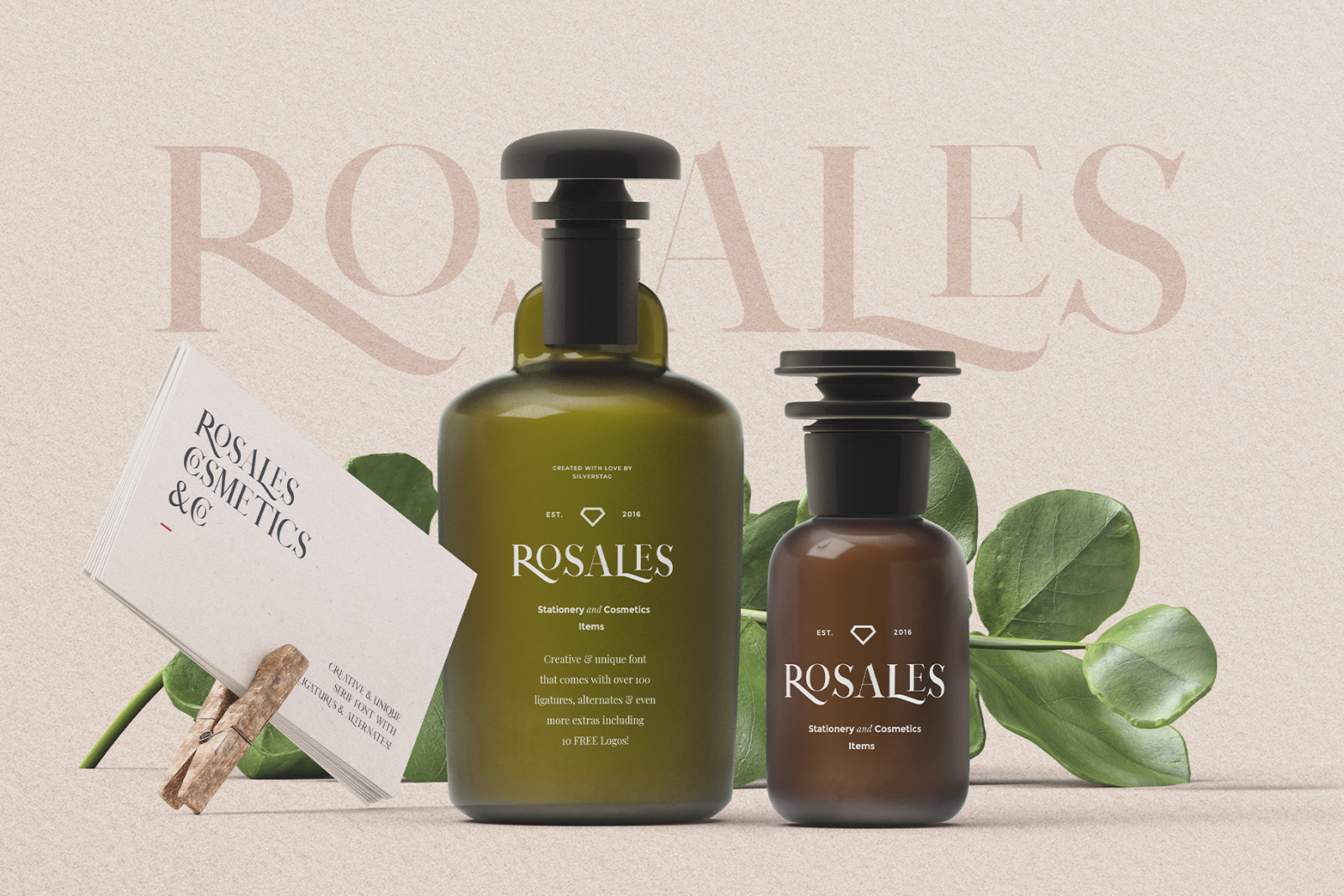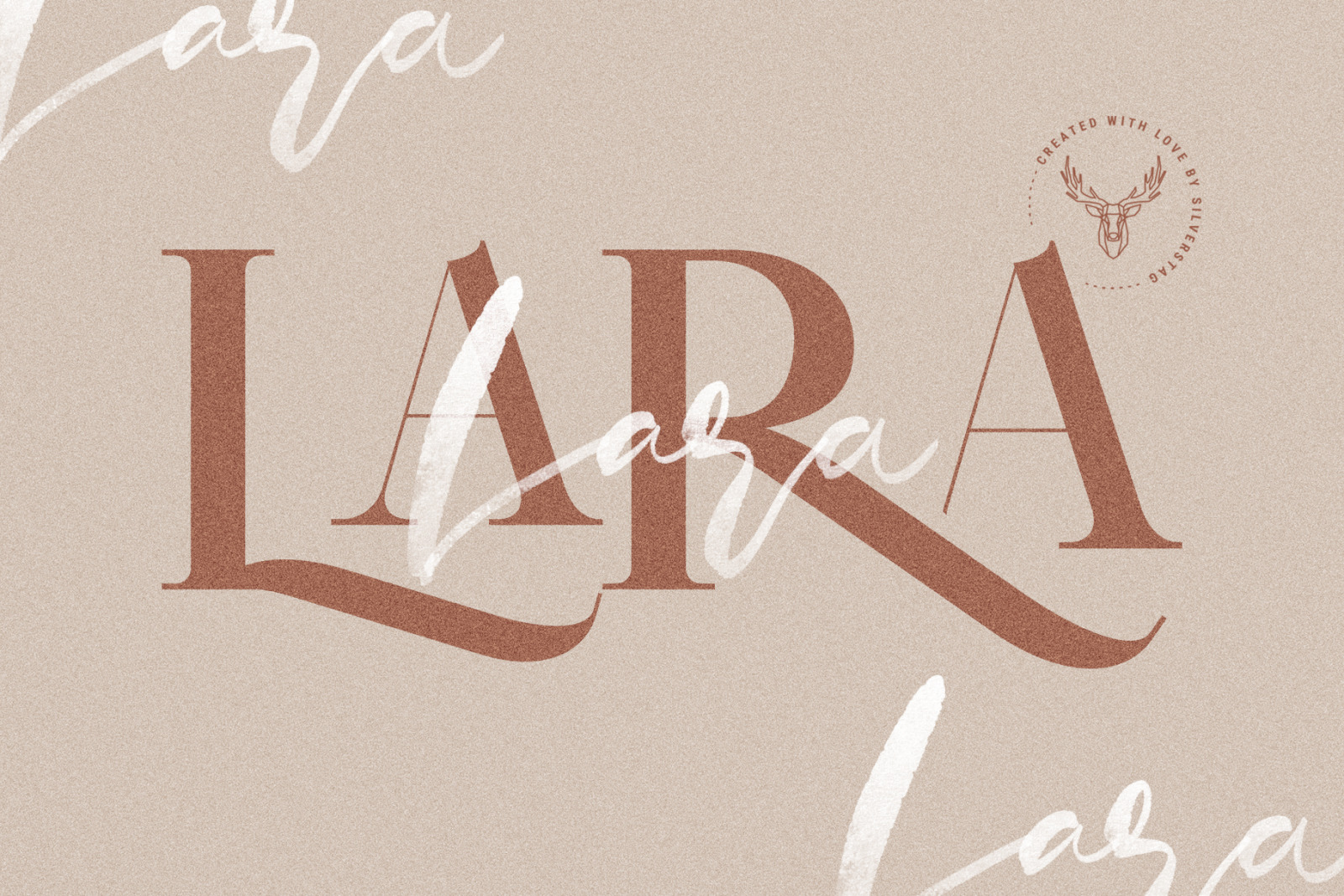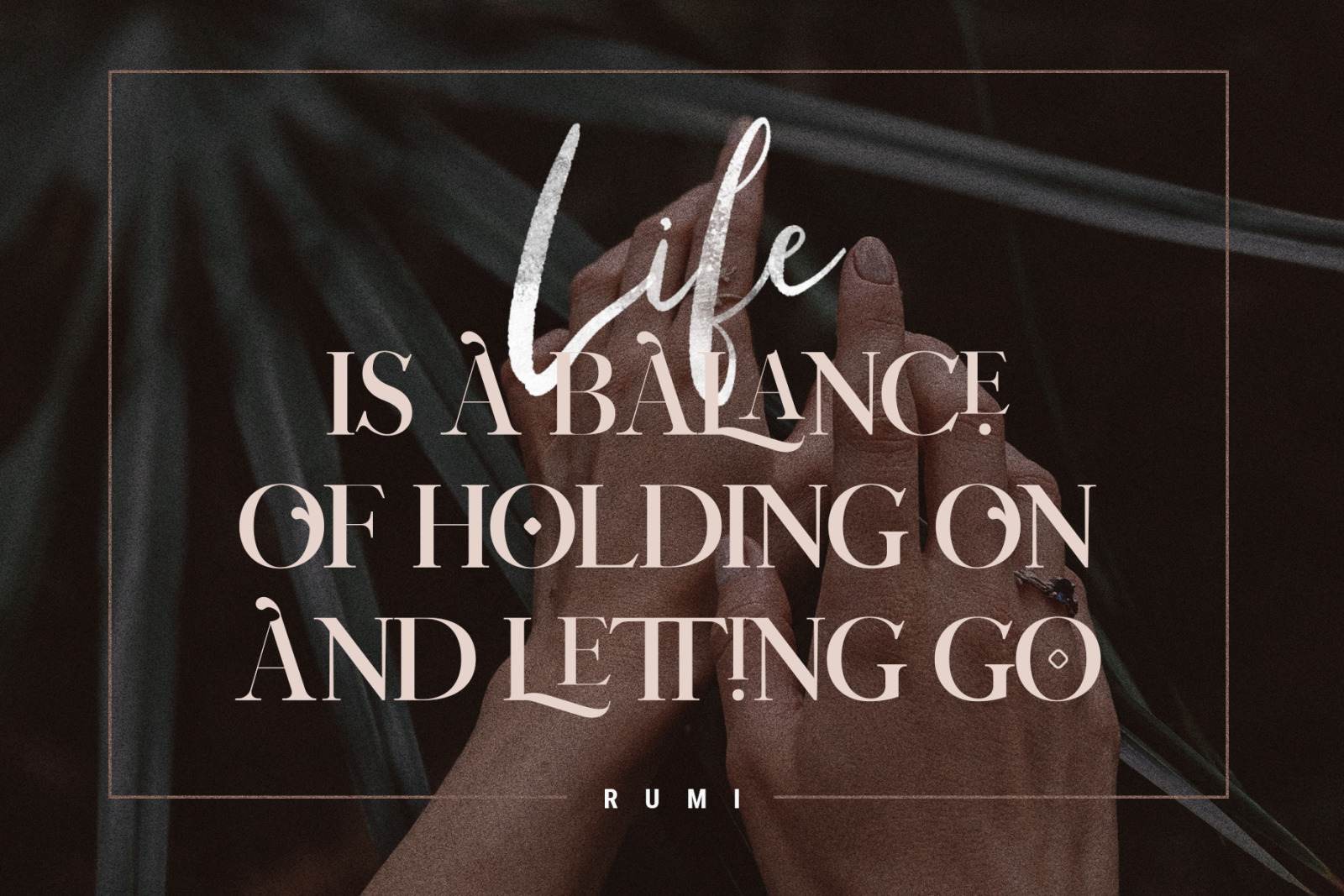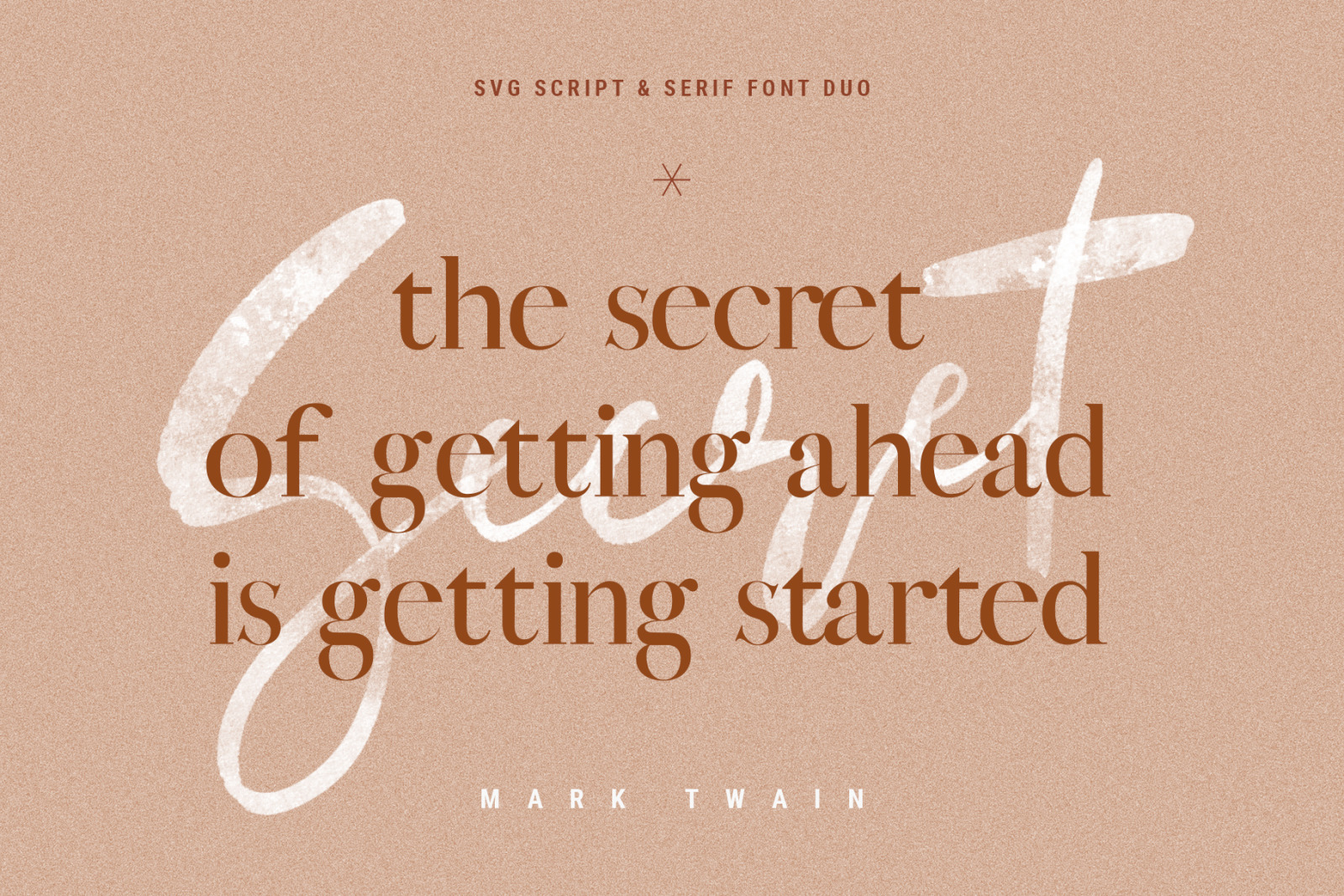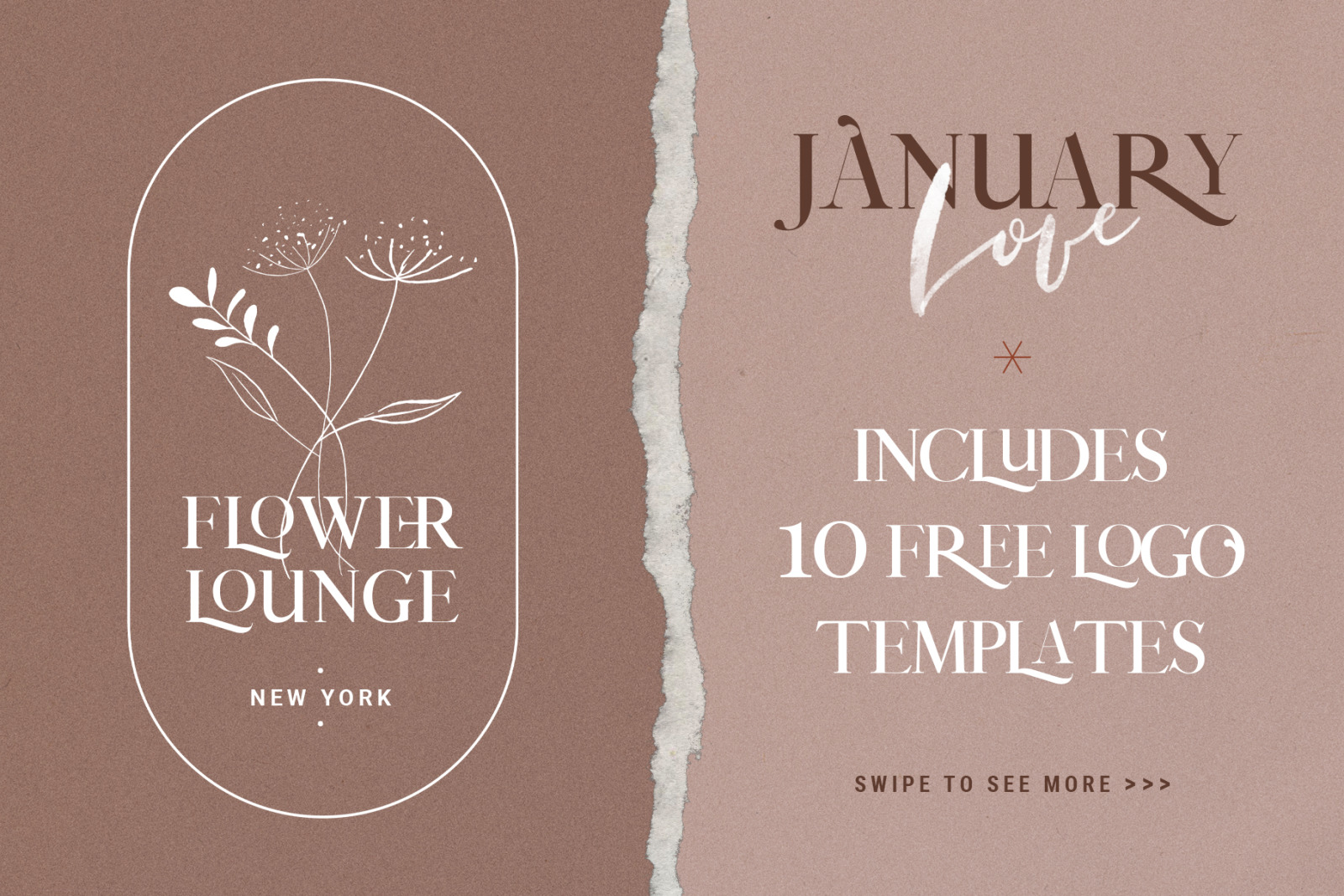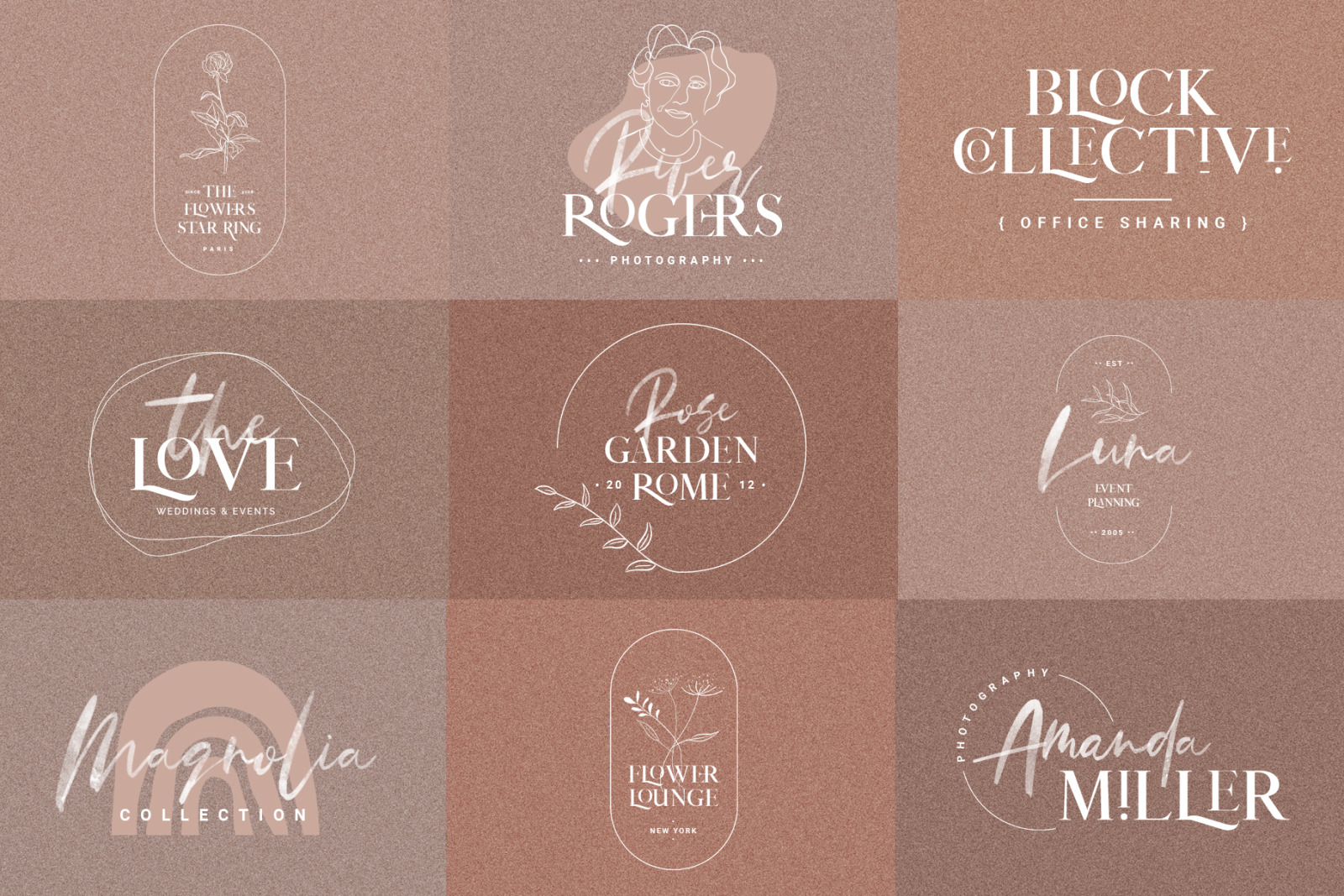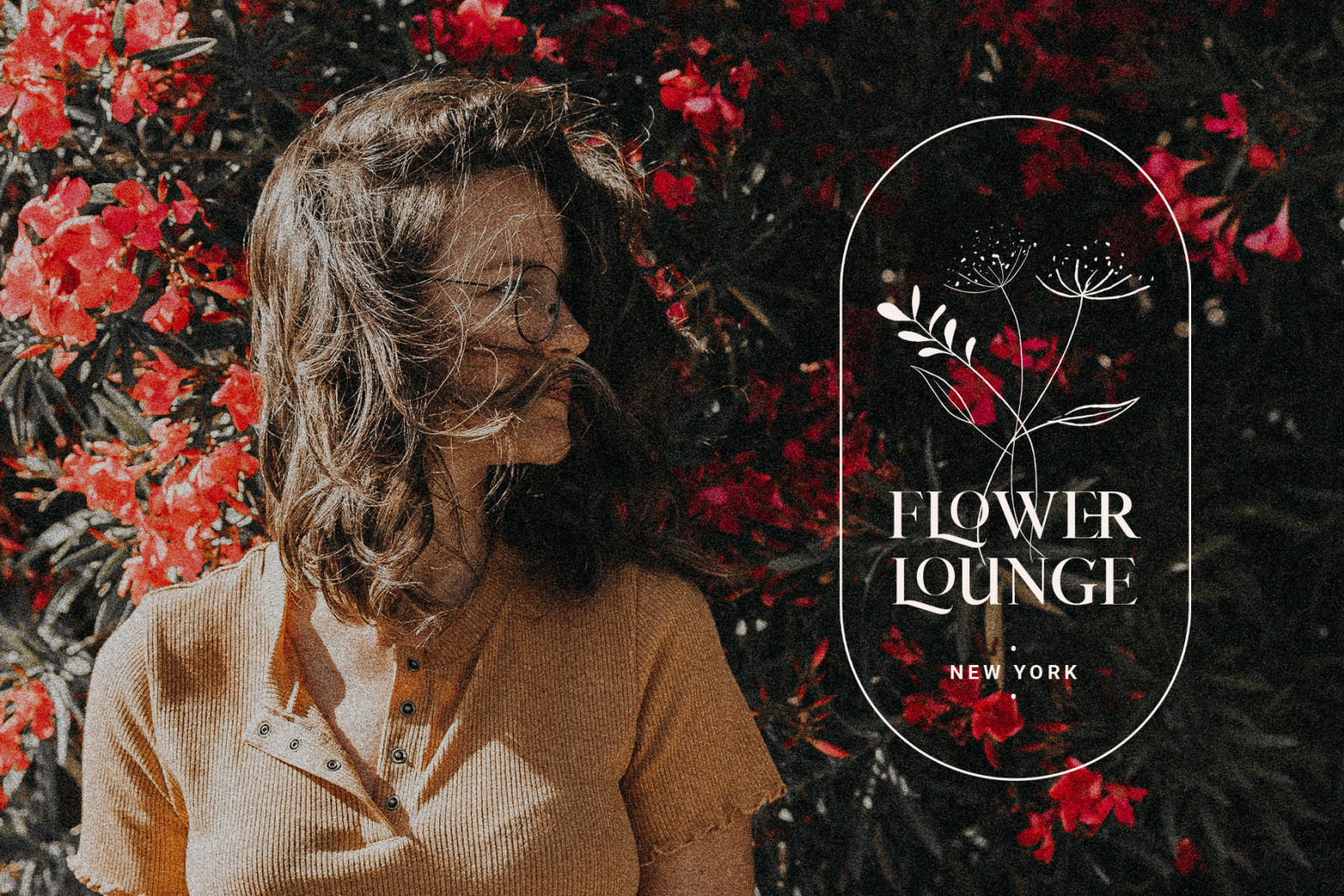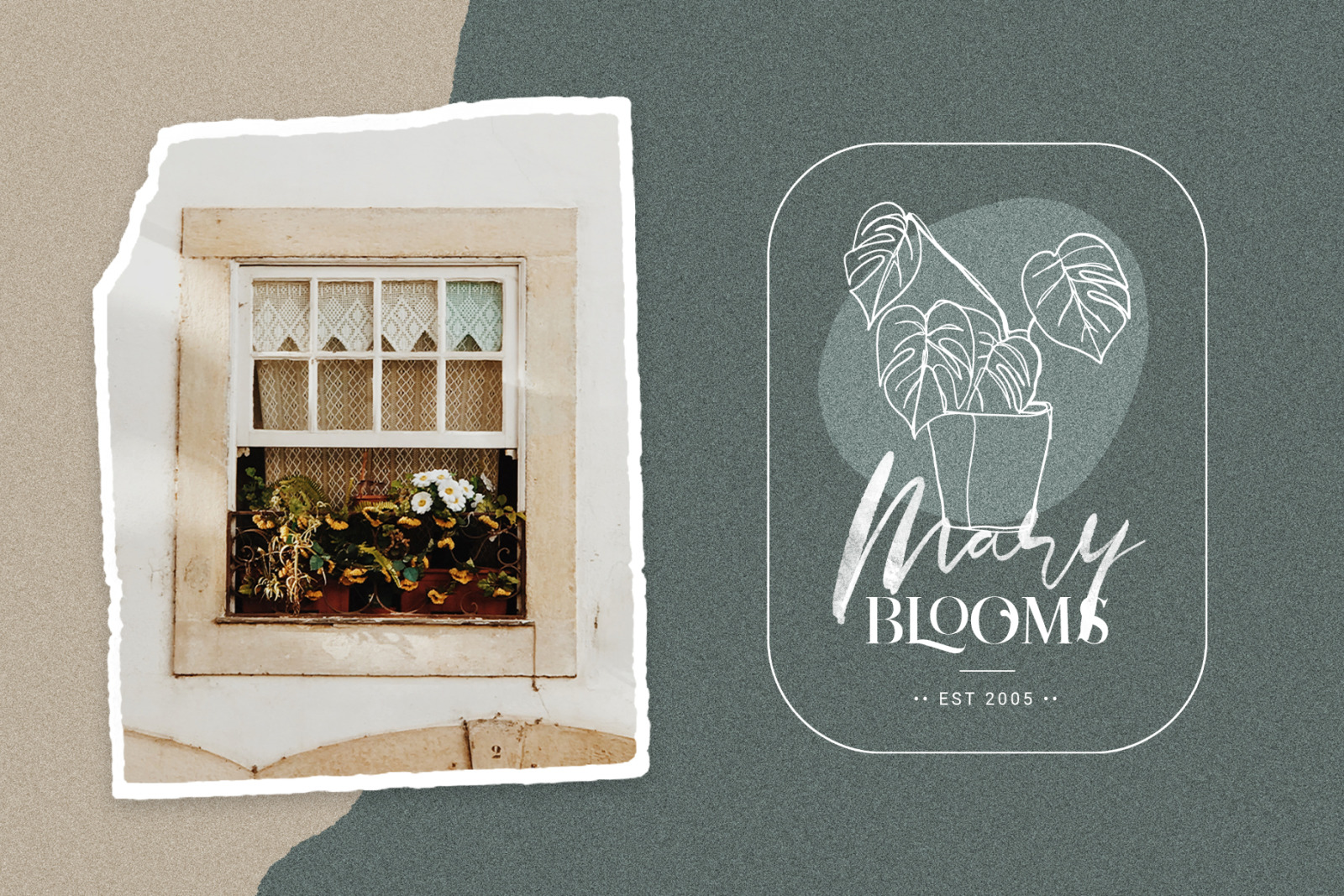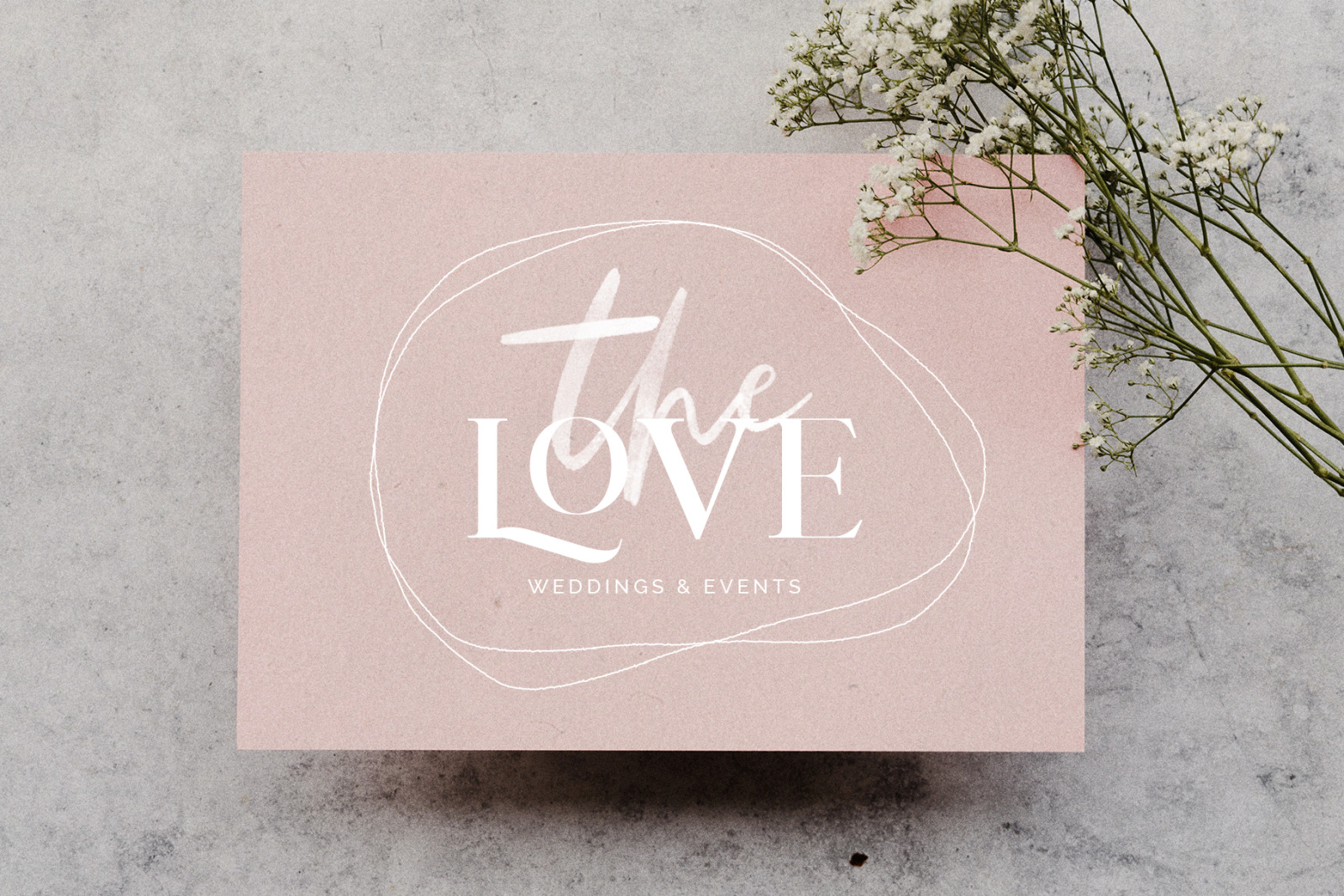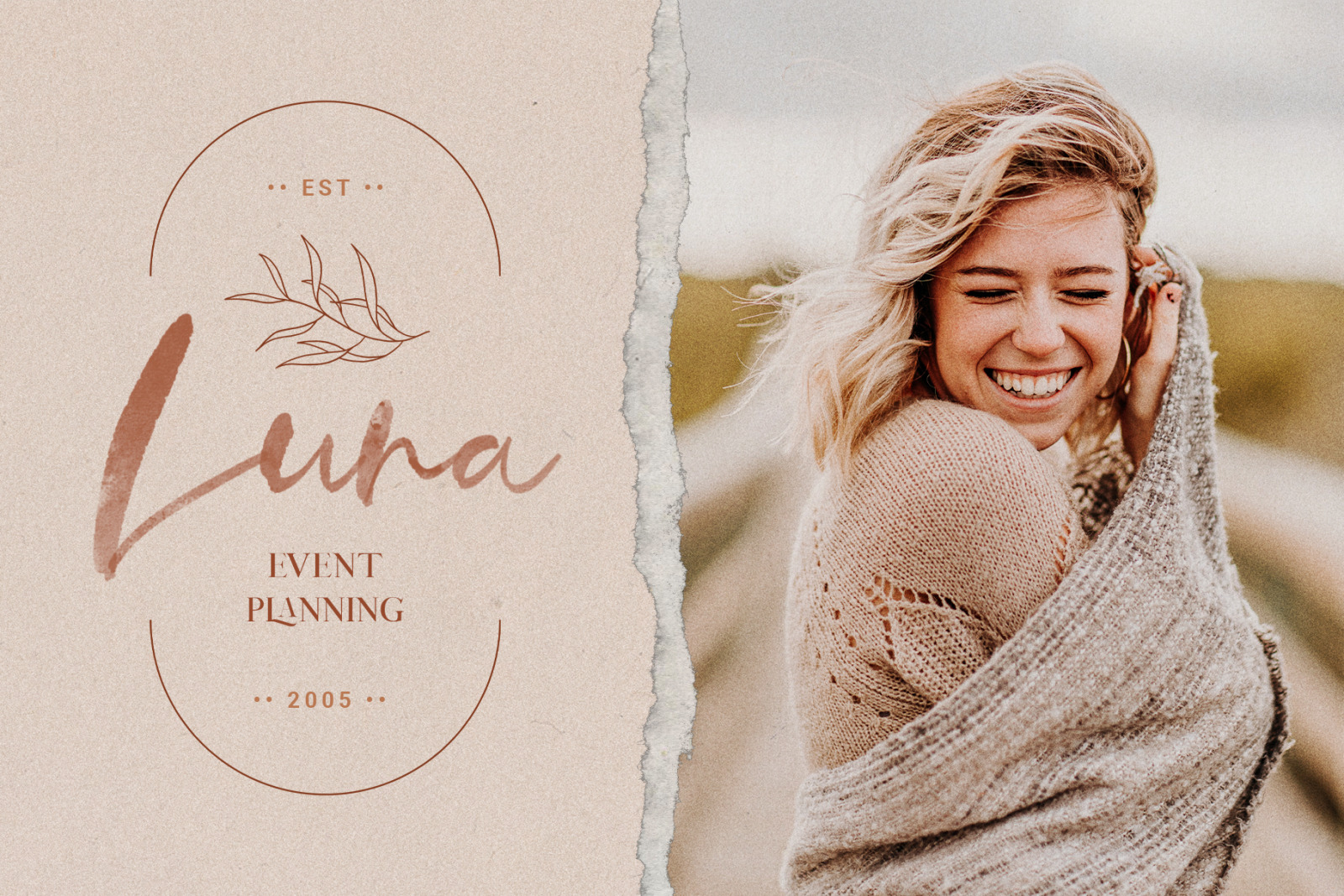
January Love SVG Font Duo With Free Logo Templates & Hand Drawn Graphics
When you hear words "month of love", January is definitely not something that comes to your mind first. But, let's change that a bit and give January some ❤️At least, that's what I'm trying to do with my new font duo January Love! A creative and elegant serif and a hand-drawn watercolor script are definitely a lovely pair (pun intended)!
These two fonts are actually not just two simple fonts, the pack is full of unique alternates, ligatures and some spicy extras! January serif comes with 67 ligatures and alternate letters, Love SVG comes with one additional set of uppercase and two sets of lowercase letters + amazingly creative 88 ligatures. Love SVG also comes as a standard version Love Script that is here for all of you who use older versions of Photoshop, Illustrator or some other app to make your designs.
But again, that's not the end. In the January Love pack, you will find over 250 additional graphics I have used in my designs. These graphics include shapes, lines, foliage, line art, and even some handwritten words. These words are available only as PNG files and as such, they are not editable. You can only change their position, size, color, overlay or even remove them completely.
JANUARY serif font with 67 alternates and ligatures
LOVE SVG script font with 1 additional uppercase and 2 lowercase alternate letters + 88 ligatures that will make your text look even more unique
Love Script that is actually intended for software that doesn’t support SVG fonts
January Serif and regular version of Love script font support Danish, English, French, German, German (Switzerland), Norwegian Bokmål, Portuguese, Spanish, Swedish, Swiss German.
Love SVG doesn’t support other languages but includes all the necessary symbols if you need to use them in your writing!